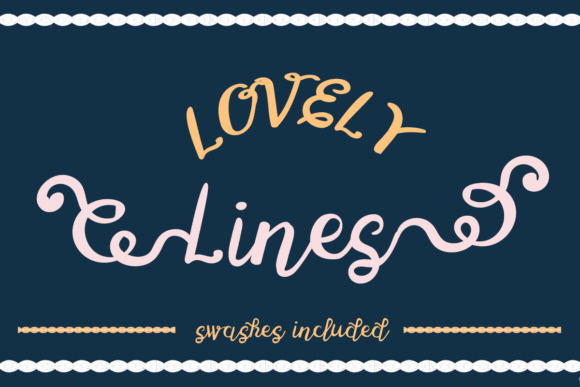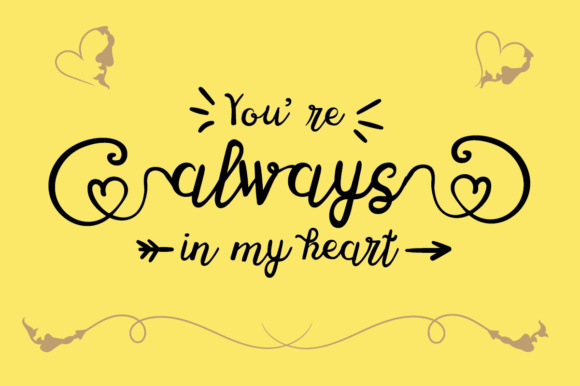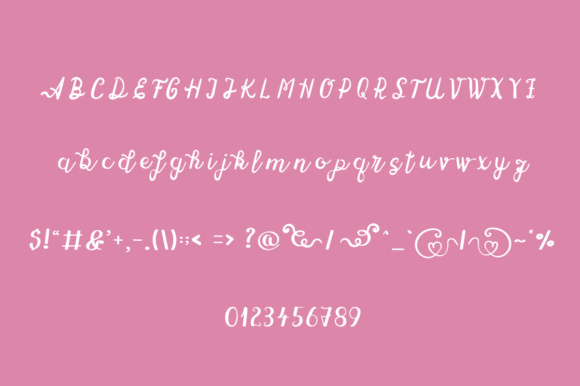
HomeScript FontsLovely Lines Font Script Fonts Lovely Lines Font FacebookXPinterestWhatsApp Lovely Lines Font Poster 2 Lovely Lines Font Poster 3 About Lovely Lines Font Lovely Lines is a stunning and playful hand-drawn display, that comes with fun initial and terminal swashes. DOWNLOAD NOW People also explored Angelitta Font Gellosia Font Magicstra Font Handlettering Fonts Collection Font Signature Font Barithom Font High Voltage Font Resseguie Font Karlissta Font 279 0 TagsLovely Lines Font Previous articleMartinesse Script FontNext articleLawlienes Font LEAVE A REPLY Cancel reply Comment: Please enter your comment! Name:* Please enter your name here Email:* You have entered an incorrect email address! Please enter your email address here Website: Save my name, email, and website in this browser for the next time I comment. Personal Use Free Strings Personal Use Free Read more about this font Harmony Personal Use Free Read more about this font Love Baby Personal Use Free Read more about this font Bahjera Personal Use Free Read more about this font BLOG Exploring Font Trends Shaping Communication in the Digital Era Fonts, like all design elements, are subject to trends. They play a crucial role in communicating a brand's personality,... Elegant Wedding Invitation Fonts – Handwritten & Script Fonts Free vs Paid Fonts: Why Investing in Premium Fonts Is Worth It To increase your work productivity, choose the most readable fonts.